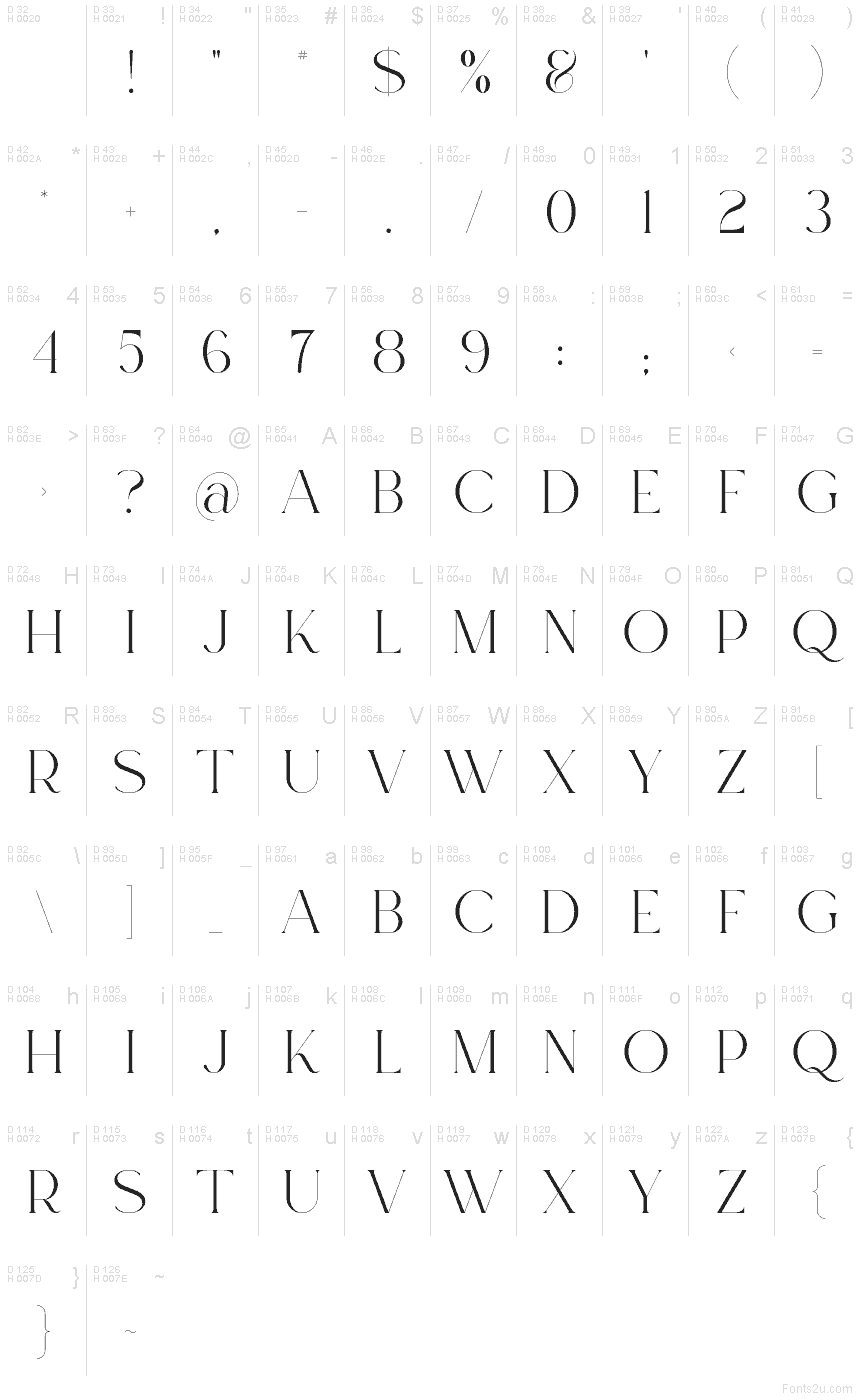
Moon Type Free Demo
Moon Type font, a masterpiece by VPcreativeshop, is an elegant visual blend with a modern twist and mysterious feel. The free serif font’s classics mirror principles of logical beauty and stylistic harmony, bringing exceptional readability to all projects. It adds the much-needed magic that makes designs go from drafts to artists ‘work’, and as in the name of this font, it gets them over the “moon”.